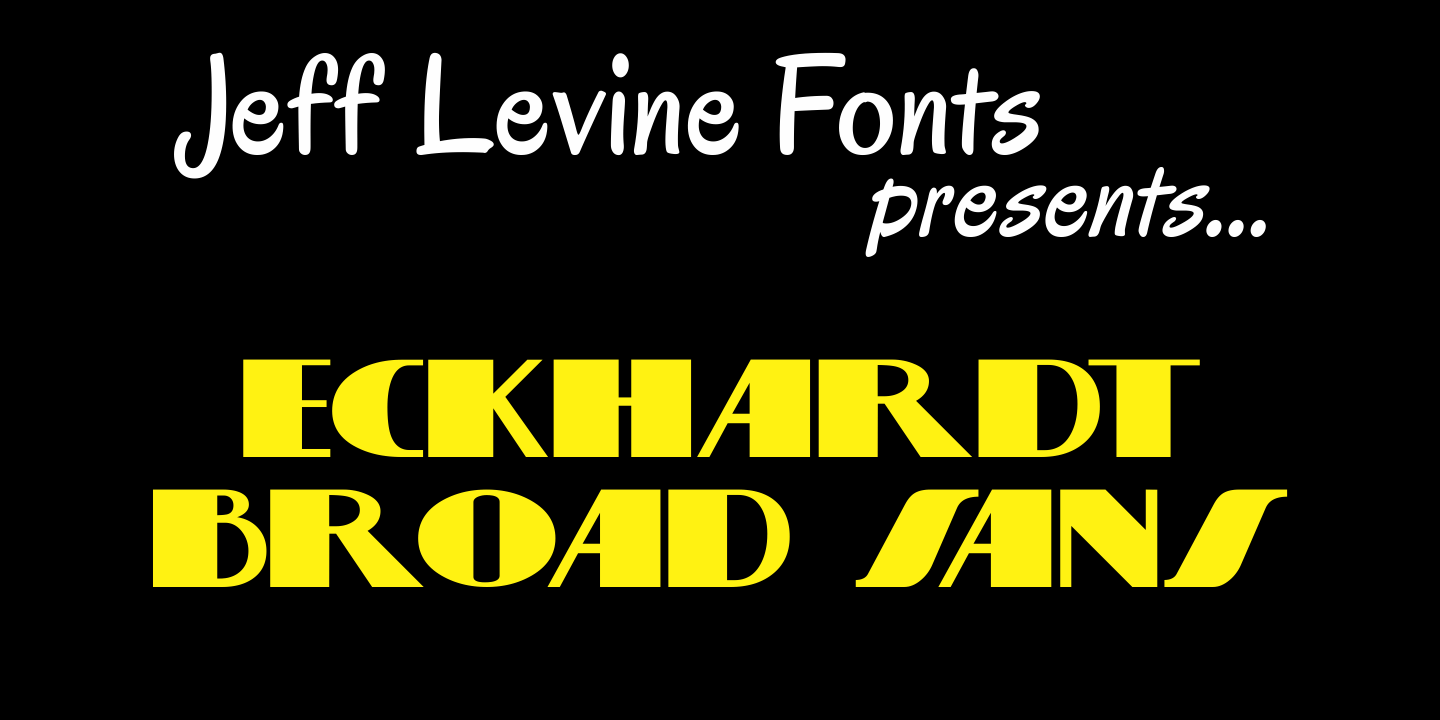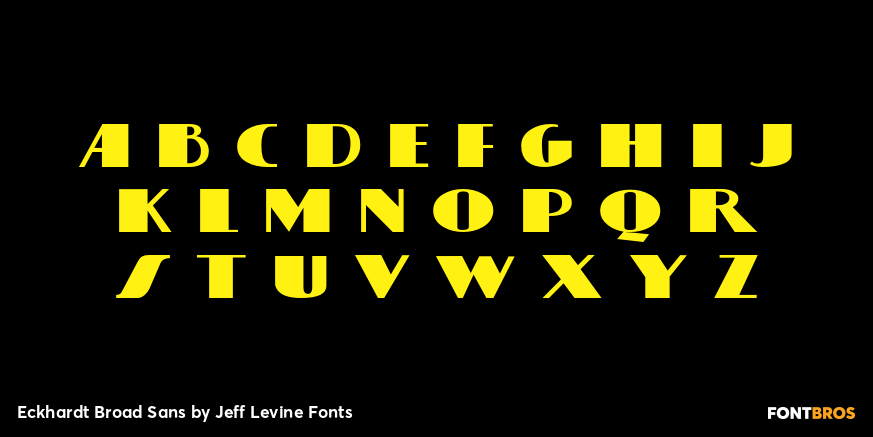
Eckhardt Broad Sans
Eckhardt Broad Sans JNL joins the growing collection of sign painter-oriented fonts named in honor of the late Al Eckhardt of Allied Signs, a good friend of Jeff Levine for many years and a talented sign lettering artist in his own right.
This design is a sans serif approach to the lettering found in Eckhardt Showcard JNL and Eckhardt Showcard Two JNL.